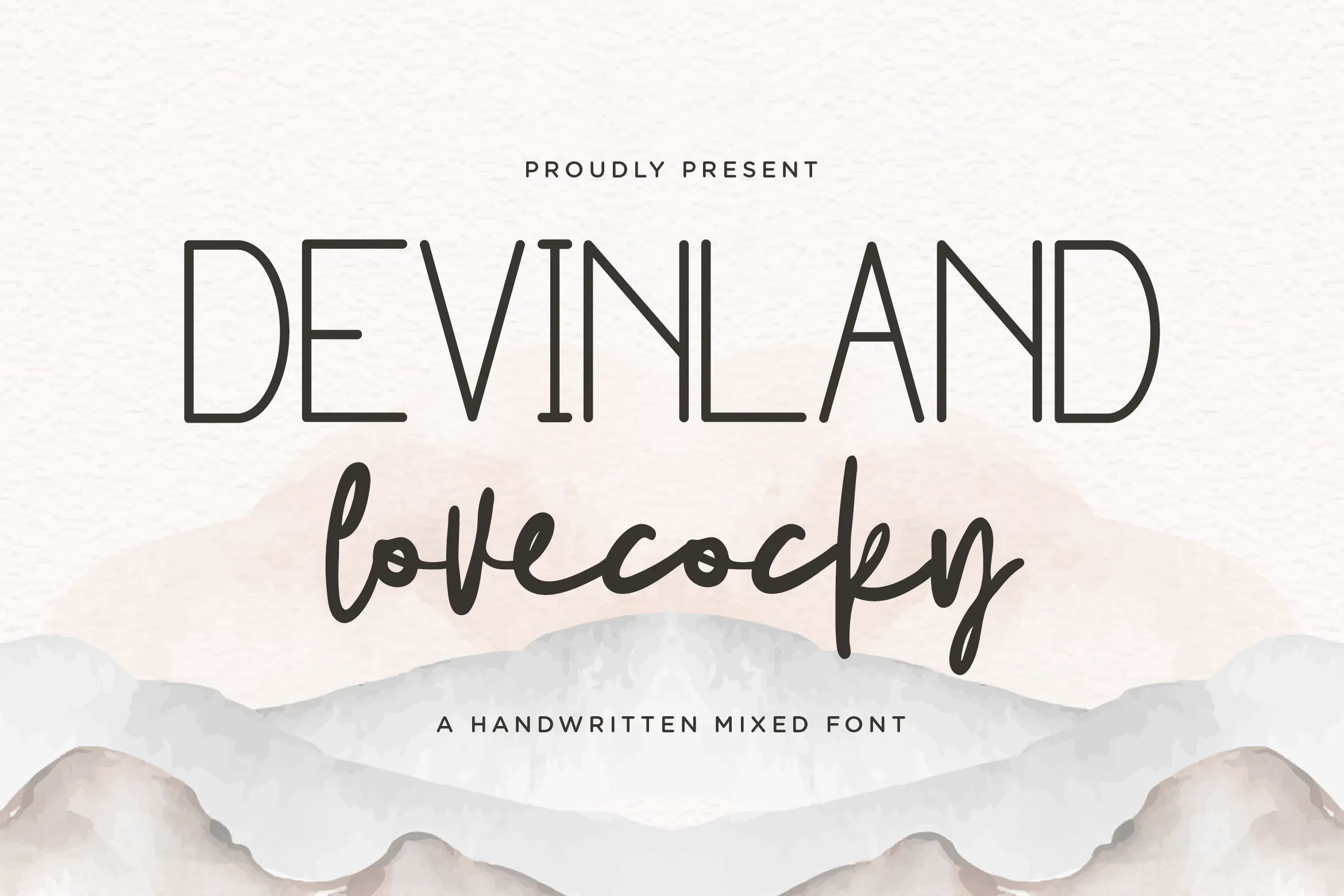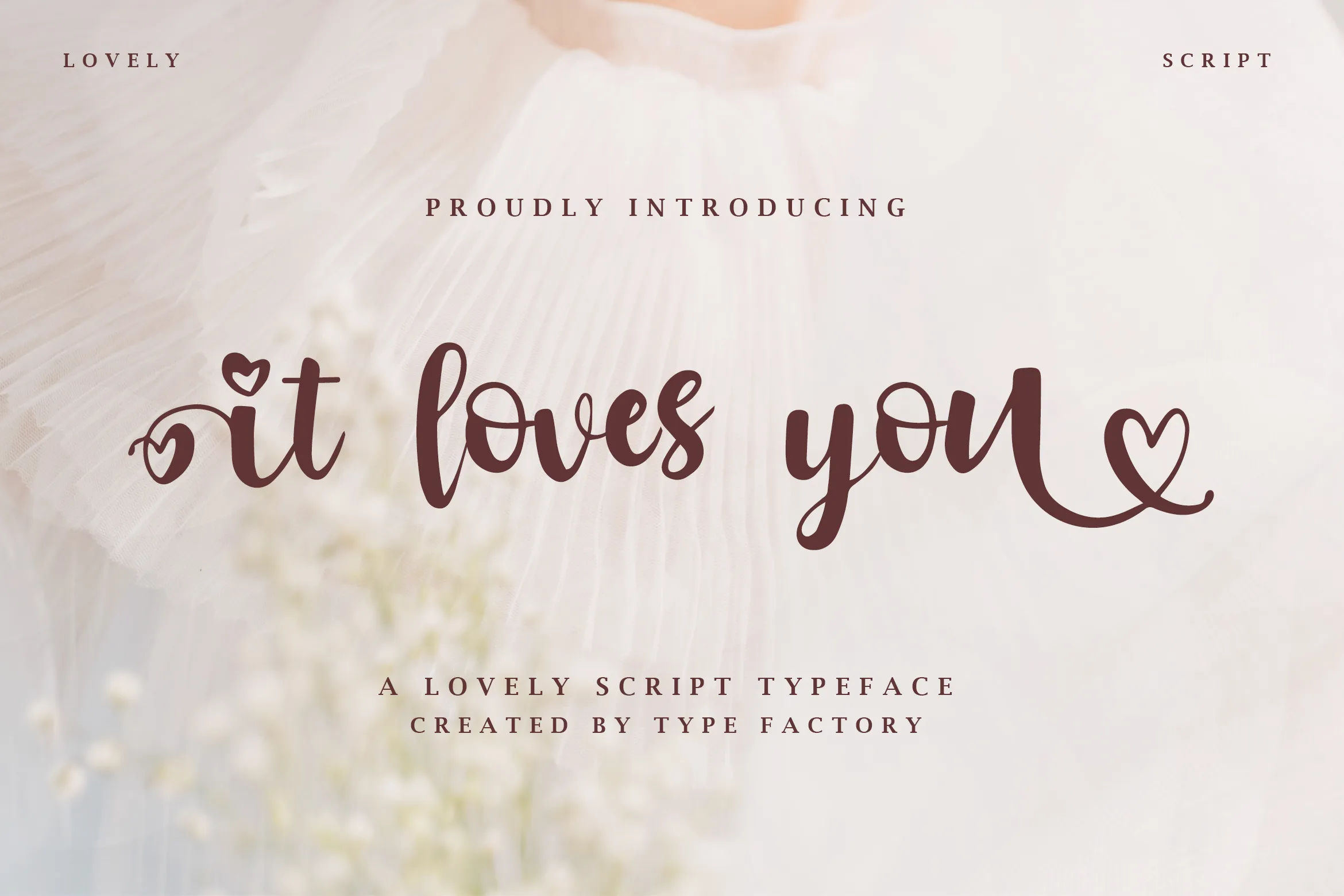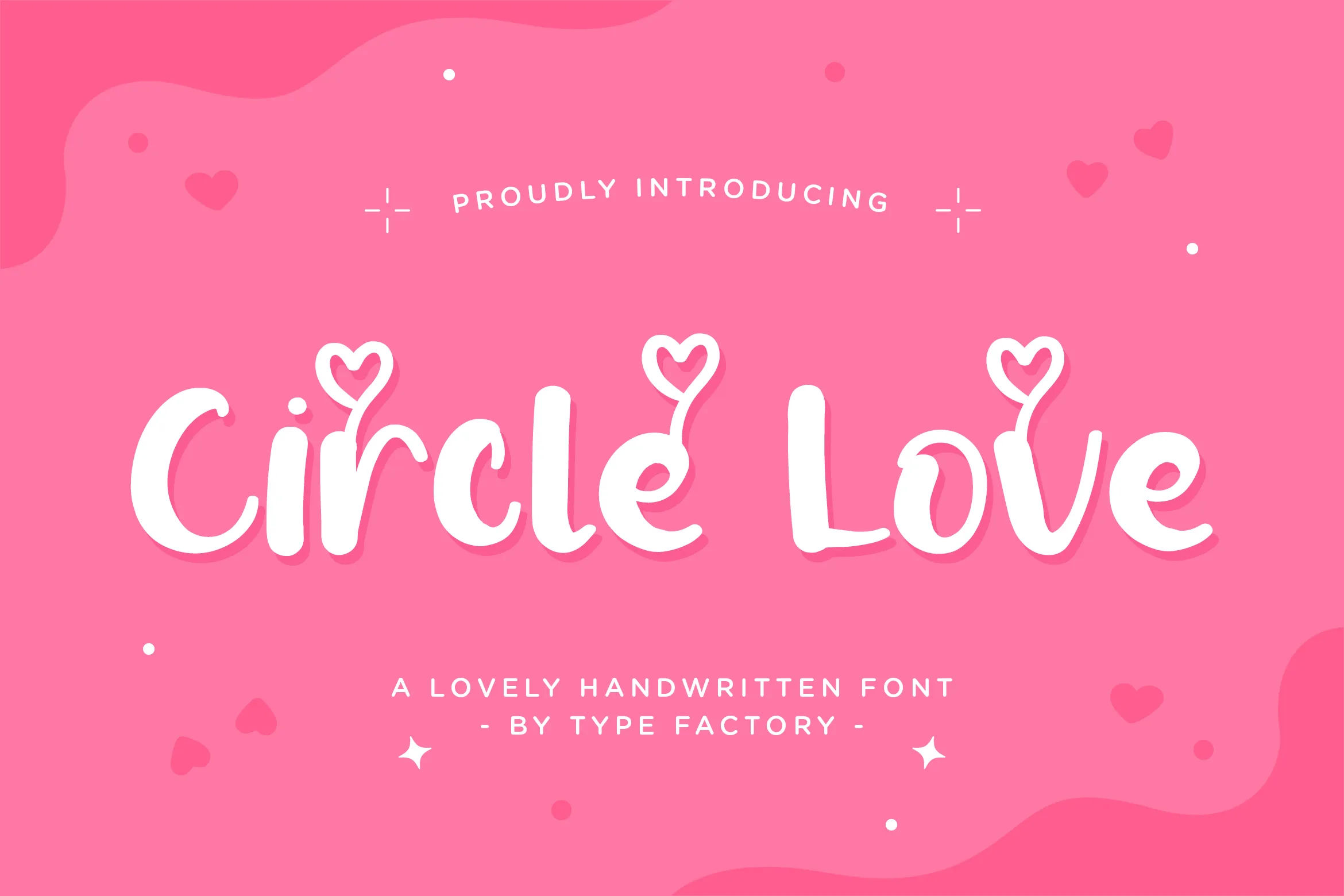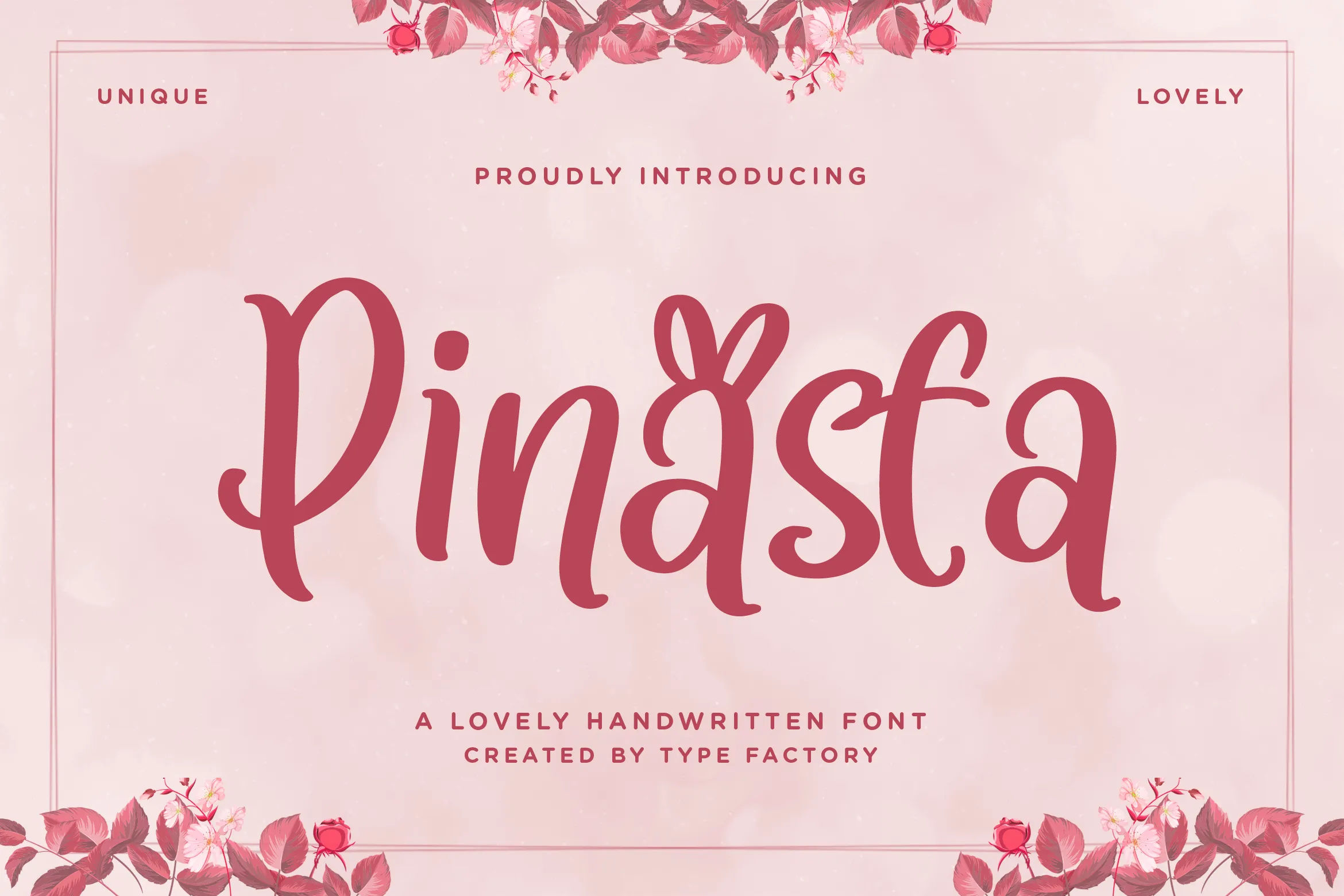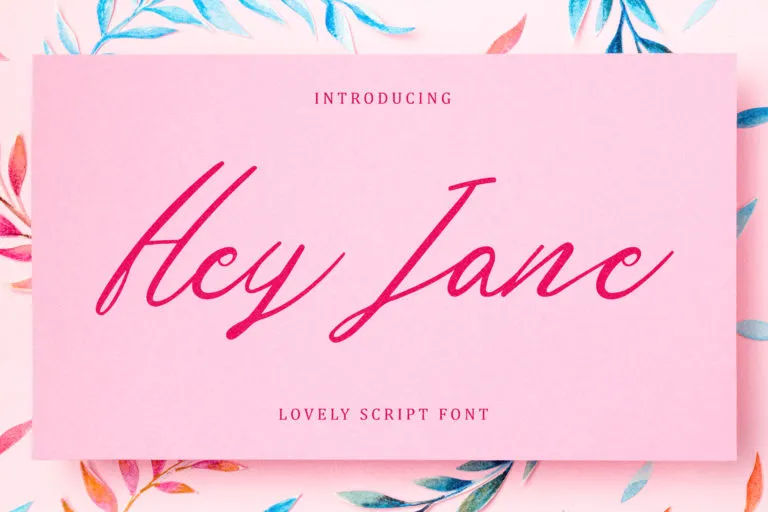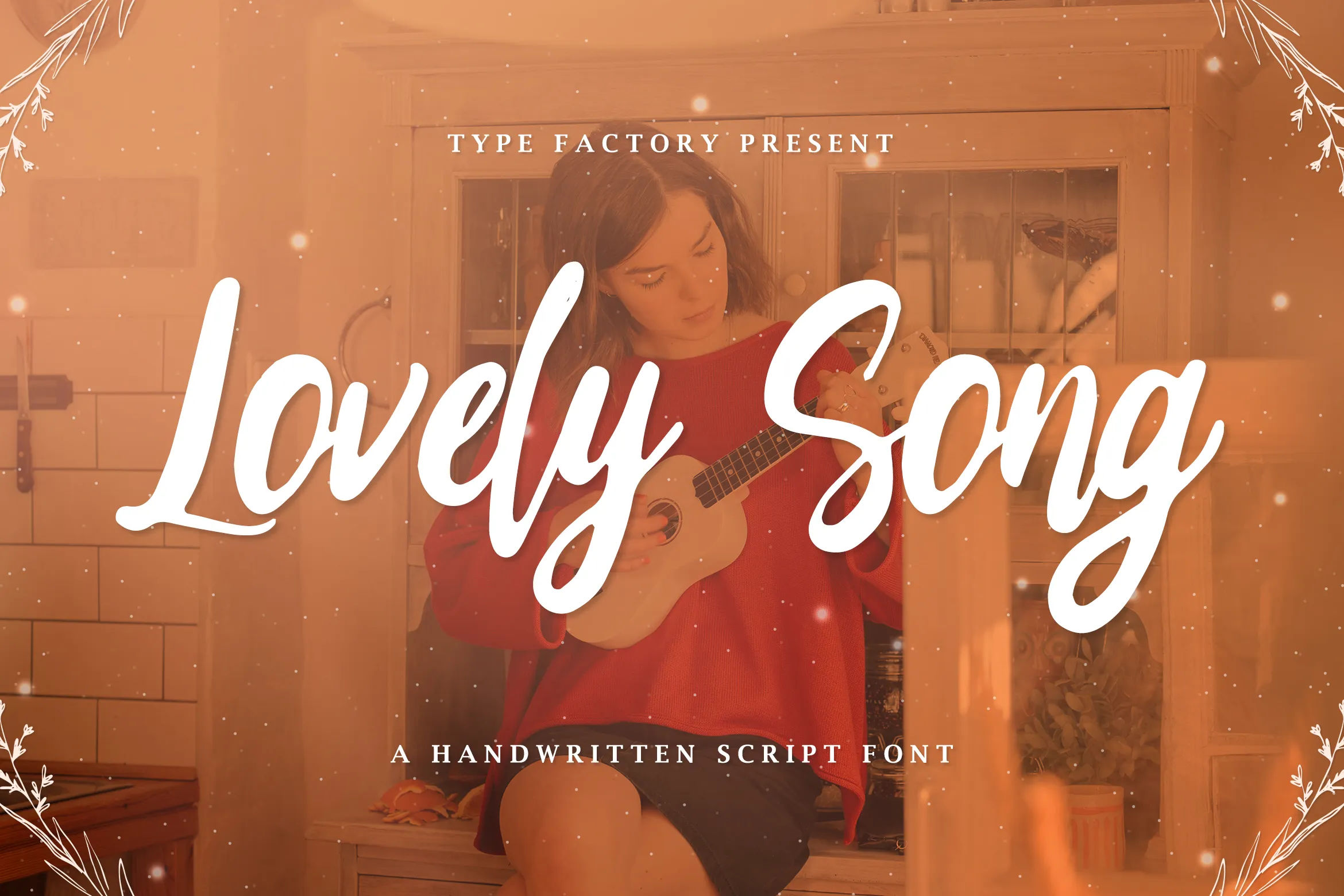
30+ Best Heartfelt and Romantic Anniversary Quotes for Couples
According to Smith (2024), expressing gratitude to your partner can make your relationship stronger. There are many ways to convey these feelings, but choosing the right quotes is key, as the right anniversary messages have the power to touch the heart and create lasting memories.
To make it easier, this article shares 30+ romantic, heartfelt, and universal quotes, especially for wedding anniversaries, dating milestones, or any special relationship occasion.
Best Anniversary Quotes
Celebrating love has never been easier. Here are anniversary messages for various occasions to help you find the perfect words to express your feelings.
Wedding Anniversary Quotes
1. Thank you for turning our marriage into a place where my heart always finds home.
2. Every anniversary reminds me that marriage is not a journey we walk, it’s a home we build.
3. Our marriage is my favorite story, one we write with patience, love, and laughter.
4. Happy wedding anniversary. May our marriage stay gentle in storms and joyful in sunshine.
5. In the quiet of our marriage, I hear the loudest truth: I was meant for you.
6. Every marriage has its seasons, and I’m grateful to walk through all of them with you.
Dating Anniversary Quotes
1. Every day with you feels like the first spark. Happy anniversary, my love.
2. Another year with you, and my heart still chooses you without hesitation.
3. In a world full of noise, your presence is the one melody my heart never gets tired of listening to. Happy anniversary!
4. You are my calm, my chaos, and my favorite in-between.
5. With every passing day, loving you becomes my favorite melody.
6. With you, time doesn’t just pass. It blooms.
Simple and Sweet Anniversary Quotes
1. Happy anniversary, my love. With you, love doesn’t age, it evolves.
2. Here’s to us. Still loving, still learning, still choosing each other.
3. You’re my calm, my joy, my always. Happy anniversary.
4. Each year by your side becomes the one I treasure most.
5. Happy anniversary. Loving you never goes out of style.
6. Thank you for choosing me today, again, and always.
Funny and Playful Anniversary Quotes
1. Thanks for choosing me, repeatedly, even after seeing my morning face.
2. Love you endlessly, even when you forget where you put everything.
3. We survived another year together, and you still haven’t escaped. Incredible!
4. We’re still in love, and still stealing each other’s food.
5. Our love is strong, and so is our snack budget.
6. Happy anniversary to the person who can give me butterflies and a mild headache all in the same day.
Heartfelt Anniversary Quotes
1. Our love still feels like a promise that keeps choosing us every day.
2. Every year with you feels like choosing love all over again.
3. Forever feels real because you’re in it.
4. Your presence has been the softest home my heart has ever known.
5. Each year with you reminds me how beautiful commitment can be.
6. You’re the steady hand I hold when the world feels heavy. Happy anniversary.
Anniversary Quotes for Husband
1. You’re not just my husband but the reason love feels easy to believe in.
2. Every anniversary reminds me that choosing you was the best promise I ever kept.
3. Happy anniversary to the man who makes commitment feel like a gift, not a duty.
4. Happy anniversary to my husband. Being your wife is my favorite chapter in this life.
5. Thank you for giving me a love that grows deeper instead of fading.
6. Every anniversary reminds me how lucky I am to walk life with you.
Premium Fonts to Make Your Anniversary Unforgettable
Anniversary wishes are more than just sweet words. You also need to pay attention to the fonts you use to make them look beautiful and memorable. Here are some of the best font recommendations from Type Factory to elevate your anniversary card design.
1. Devinland Lovecocky
Devinland Lovecocky is a mixed handwritten–script font with smooth curves and elegant letterforms. Its handwritten touch and gentle strokes create a warm, personal feel, as if it were written by hand.
2. It Loves You
It Loves You is a graceful handwritten script font with smooth, decorative strokes that create a feminine and romantic impression for greeting cards and love-themes quotes.
3. Circle Love
Circle Love is a charming handwritten typeface with a smooth and natural writing style. Each letter has a soft, rounded shape and is often adorned with heart elements, creating a sweet, romantic, and warm feel, which is perfect for enhancing your anniversary greeting designs.